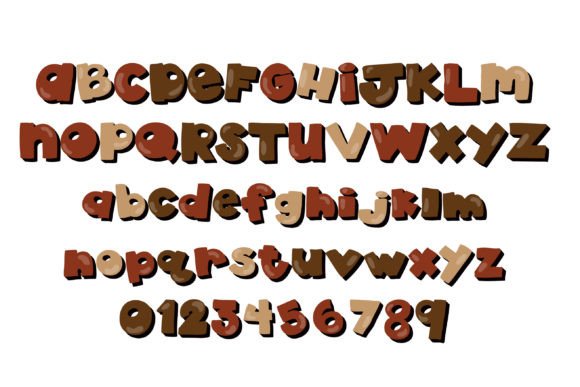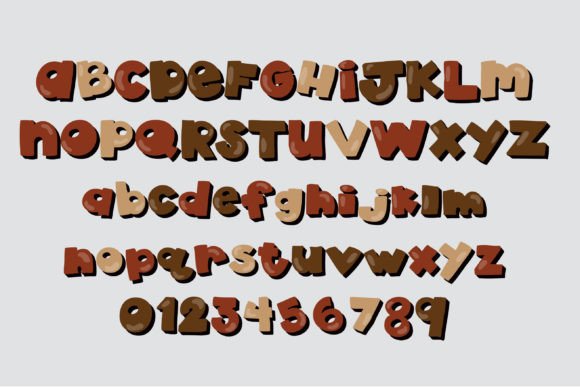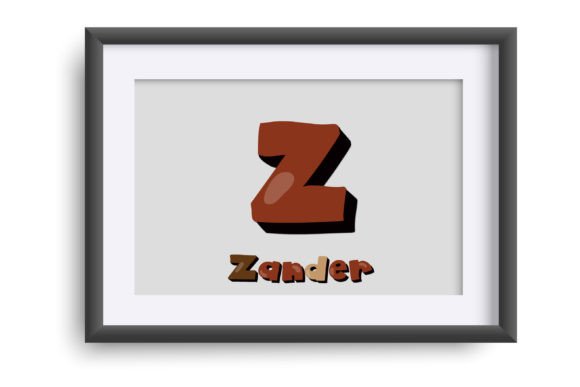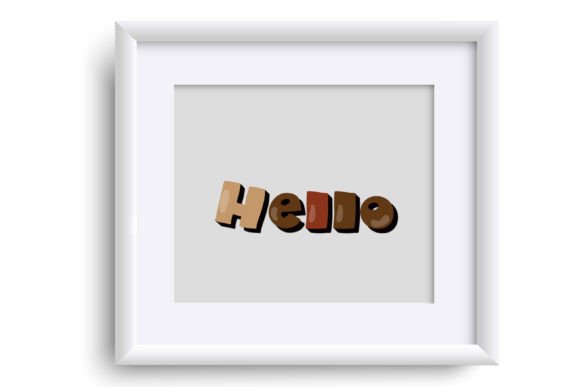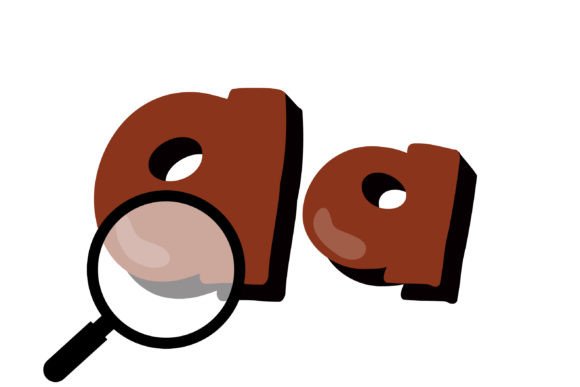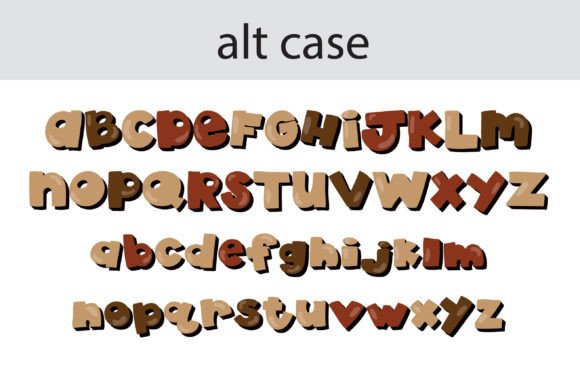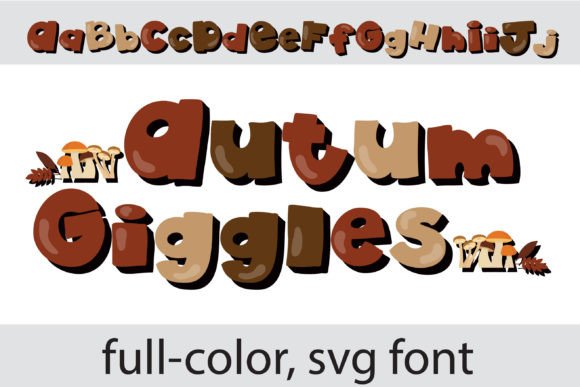
Autumn Giggles Font: A Playful Touch for Your Designs
As a designer, I’ve had my fair share of moments where I’ve struggled to find the perfect font for a project. I recall working on a fall-themed craft project, searching for a font that captured the essence of the season. That’s when I stumbled upon the Autumn Giggles Font, and it instantly became my go-to. In this article, I’ll share my experience with this delightful font, its features, and how to make the most of it in your designs.
A Personal Review of Autumn Giggles Font
- Playful lettering with thick blocky shadows in an autumn color palette 🌟
- Easy to add a mushroom/leaves flourish by typing the greater than and less than glyphs 📝
- Alt version of each letter in a different color, accessible through the system character map 🔍
The Story Behind Autumn Giggles Font
Autumn Giggles Font was designed with the intention of capturing the playful and cozy essence of fall. The creator aimed to craft a font that would add a touch of personality to designs, making it perfect for crafters, designers, and creative hobbyists. The font’s autumn color palette and whimsical flourishes make it an excellent choice for seasonal projects and designs.